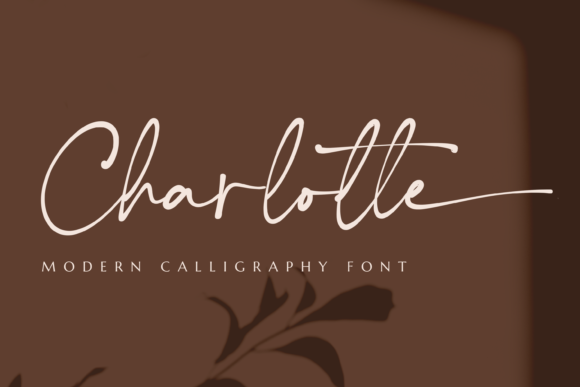
Dive into the world of Charlotte Font, a mesmerizing script font that will ignite your creativity and transform your designs into breathtaking masterpieces. Created by the talented agamous, Charlotte Font is a modern and flowing calligraphy font that effortlessly captures the essence of elegance and sophistication. Its delicate strokes and graceful curves will add a touch of charm and personality to your projects, making them stand out from the crowd.
With Charlotte Font, you have the power to turn ordinary words into captivating works of art. Its versatility knows no bounds, making it the perfect choice for wedding invitations, thank you cards, quotes, greeting cards, logos, business cards, and any other design that demands a personal touch. Whether you're a seasoned designer or just starting your creative journey, Charlotte Font will become your trusted companion, helping you create designs that leave a lasting impression.
Unleash your creativity and let Charlotte Font guide you through a world of endless possibilities. With its PUA encoding, you can effortlessly access all the glyphs and swashes, opening up a realm of customization options. Experiment with different combinations, mix and match elements, and let your imagination run wild. The possibilities are truly limitless.